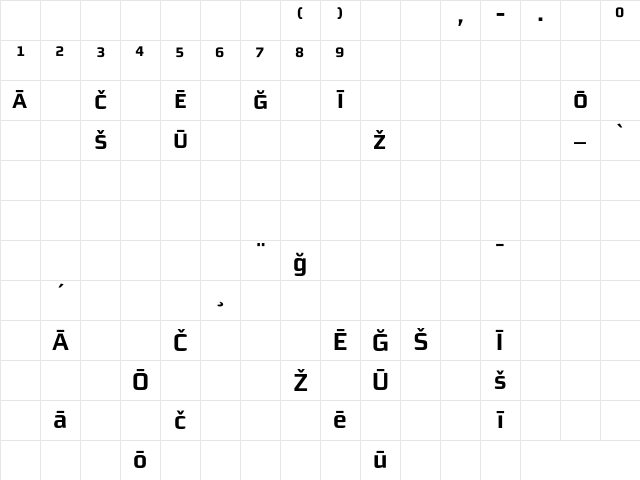
MorganSnPi Bold Free Font
MorganSnPi Bold
MorganSnPi Family
Design Context for MorganSnPi
MorganSnPi is a composed and adaptable typeface that performs quietly and consistently across a wide range of design contexts. Its bold stroke weight gives it real presence on the page.
Pro Tip: Use MorganSnPi in both headline and body roles to test its range before committing to a single application.